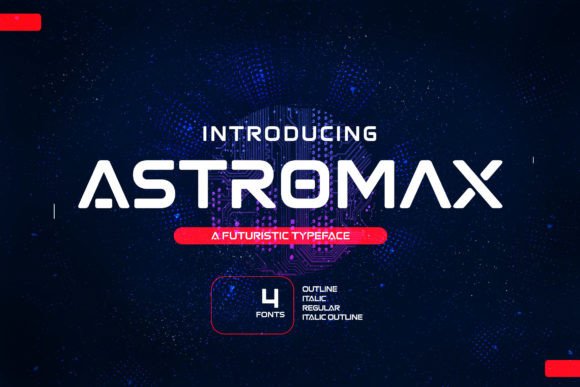
Journey into the cosmos with Astromax, the ultimate display font for your scientific endeavors. Its meticulously crafted characters exude a futuristic charm, propelling your typography designs to new dimensions. Whether you're crafting a groundbreaking scientific thesis, designing captivating gaming projects, or creating awe-inspiring movie posters, Astromax will elevate your creations to new heights.
Indulge in a universe of possibilities with Astromax, where imagination knows no bounds. Its PUA-encoded nature grants you effortless access to an array of glyphs and ligatures, empowering you to unleash your creativity. Experience the thrill of crafting designs that radiate with innovation and leave a lasting impression.
With Astromax by your side, your designs will transcend the ordinary, captivating your audience with their otherworldly allure. Embrace the boundless potential of this remarkable font and embark on a journey of typographic exploration unlike any other. Seize the opportunity to transform your designs into masterpieces that shimmer with brilliance and captivate all who behold them.